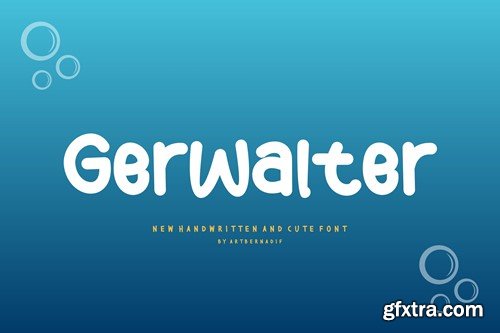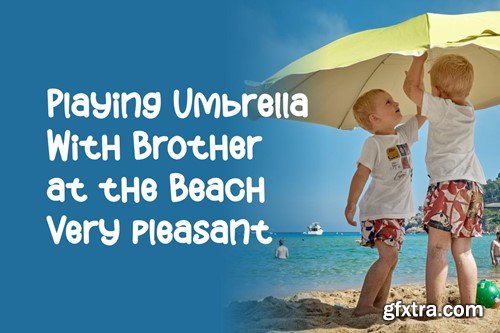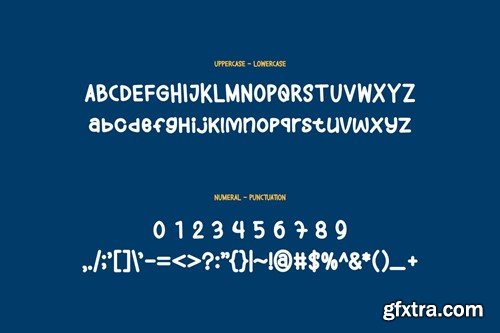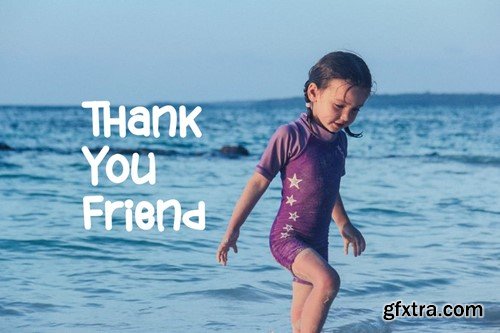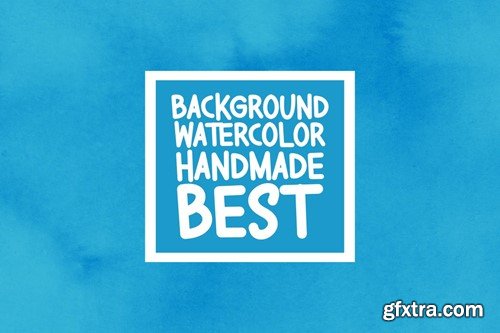
Gerwalter Font
Introducing our new product Gerwalter Font - Modern Font Gerwalter Font- Modern Font is a bold and authentic display font. The font is suitable for any branding project like logo, t-shirt printing, esport, and many more. outstanding in a wide range of contexts. availlable